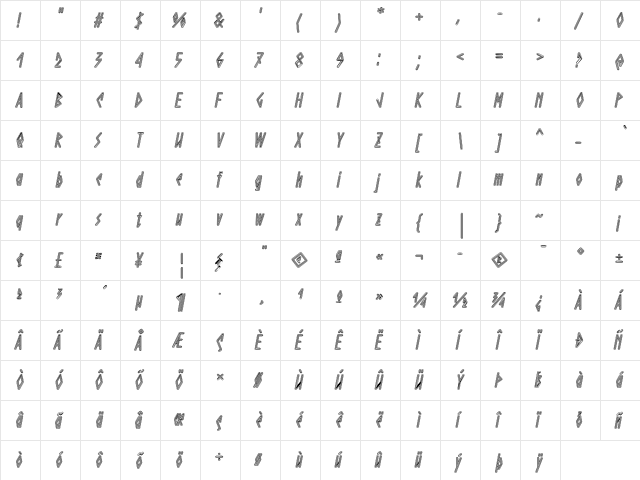
Baby Baby Color Pink Slanted
| Style | Pink Slanted |
| Foundry | Dharma Type |
| Designer | Ryoichi Tsunekawa |
Design Context for Baby Baby Color Typeface
Baby Baby Color is a composed and adaptable typeface that performs quietly and consistently across a wide range of design contexts. Its italic angle brings a sense of urgency and motion to the letterforms.